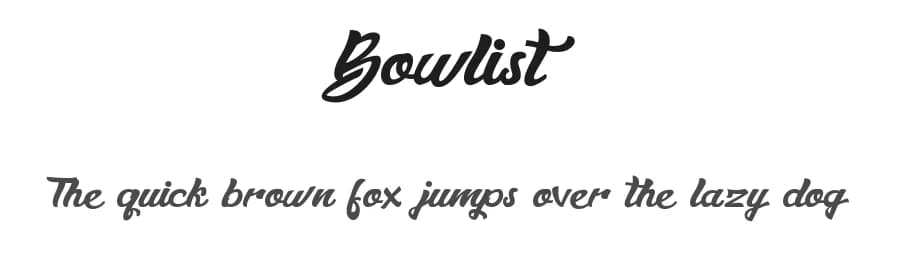
About Bowlist Font
Bowlist Specifications
| Glyph Count | 379 glyphs |
| Designer | Hendra Maulia |
Bowlist supports 214 languages.
Bowlist Font is a script font that shines as a display or heading face. Pair it with a clean sans-serif or serif font for body text β the contrast creates a clear hierarchy while the two styles stay balanced and easy to read.
Bowlist Font